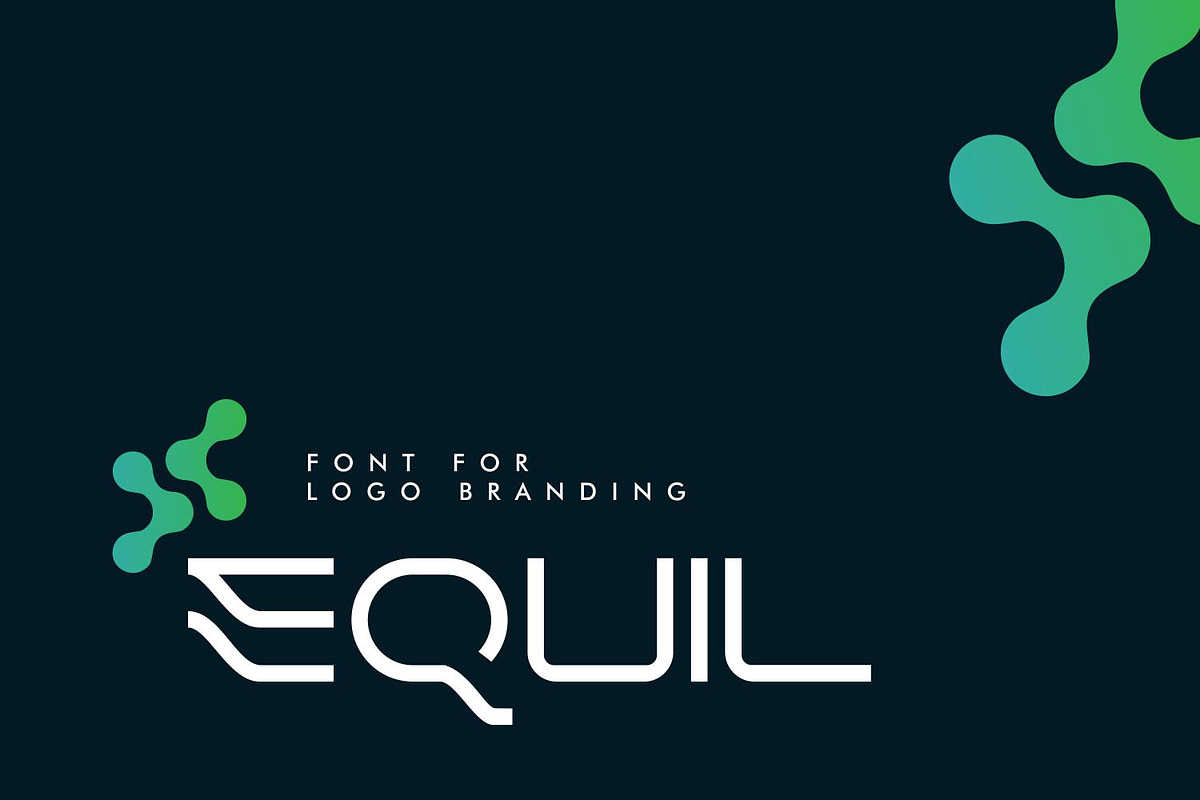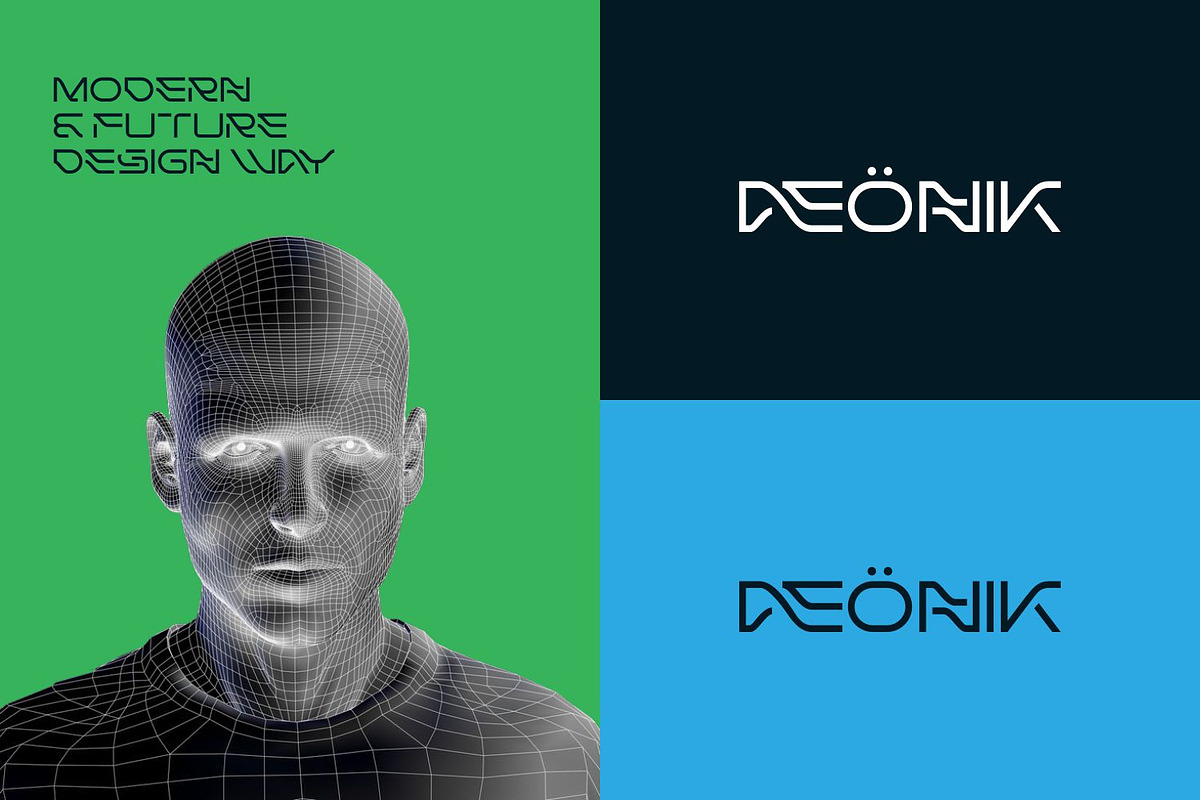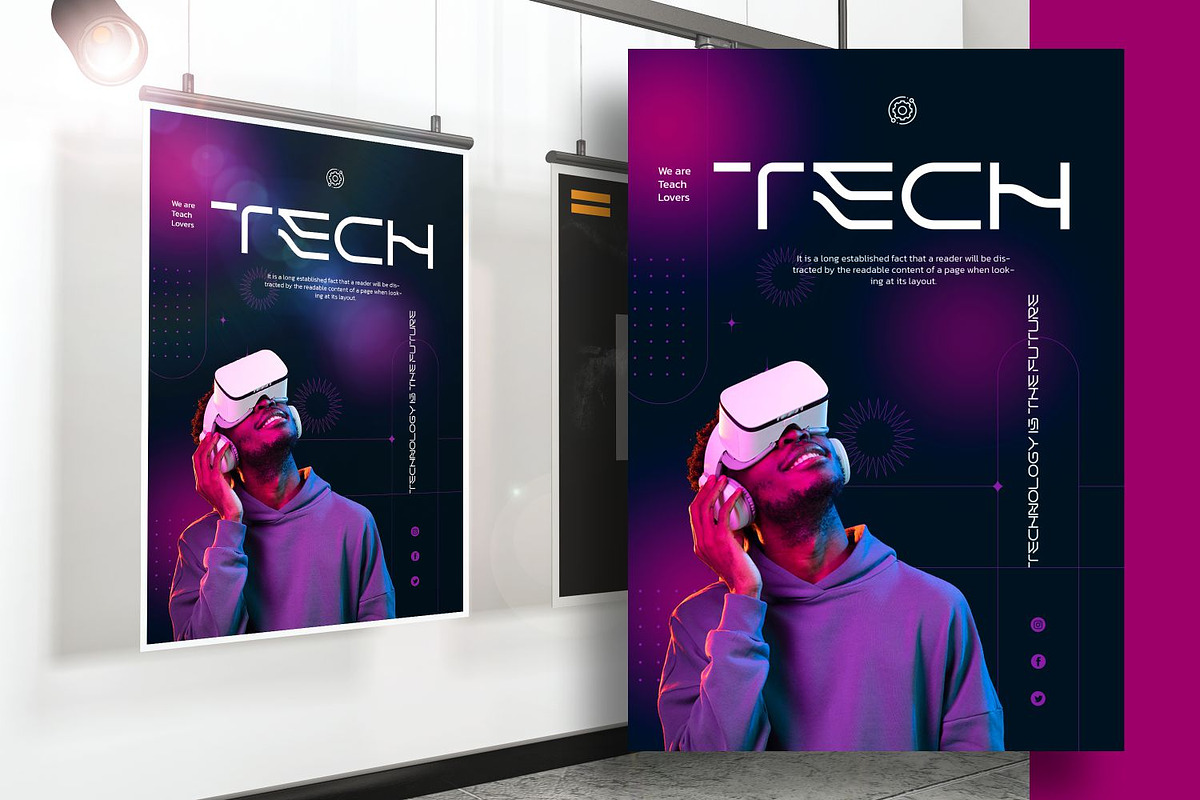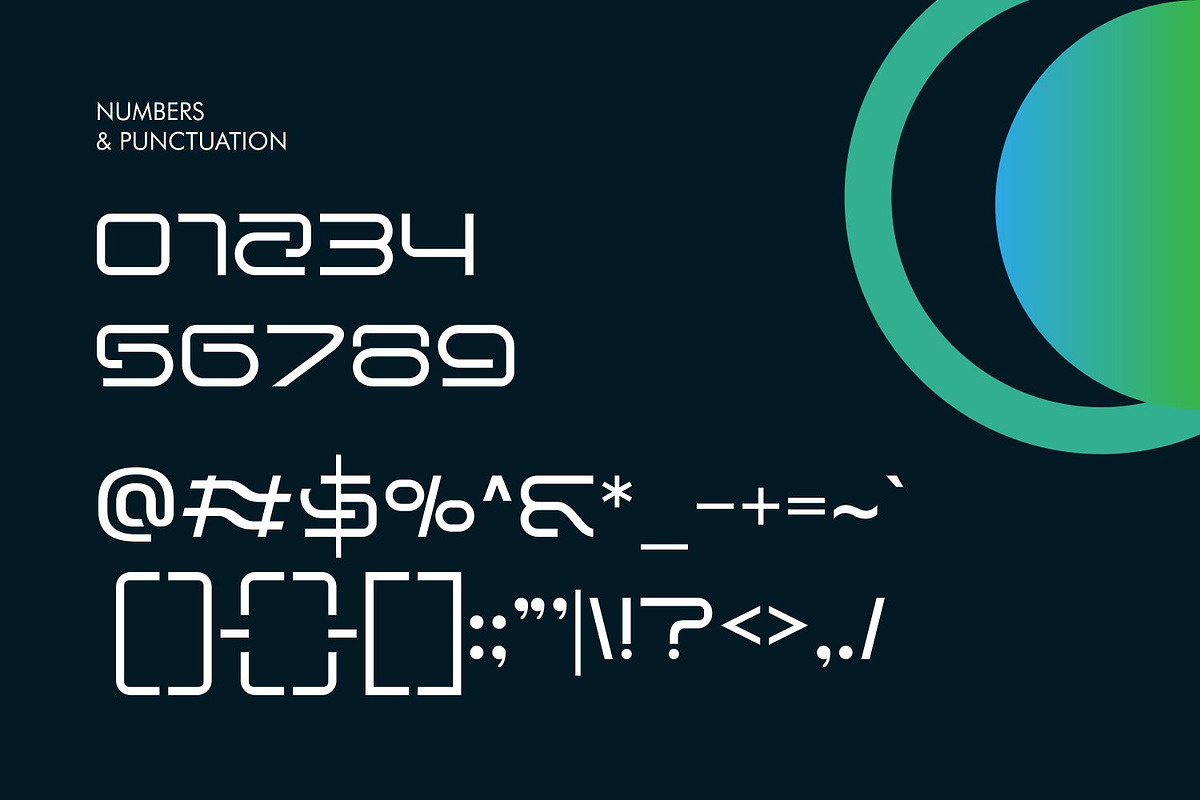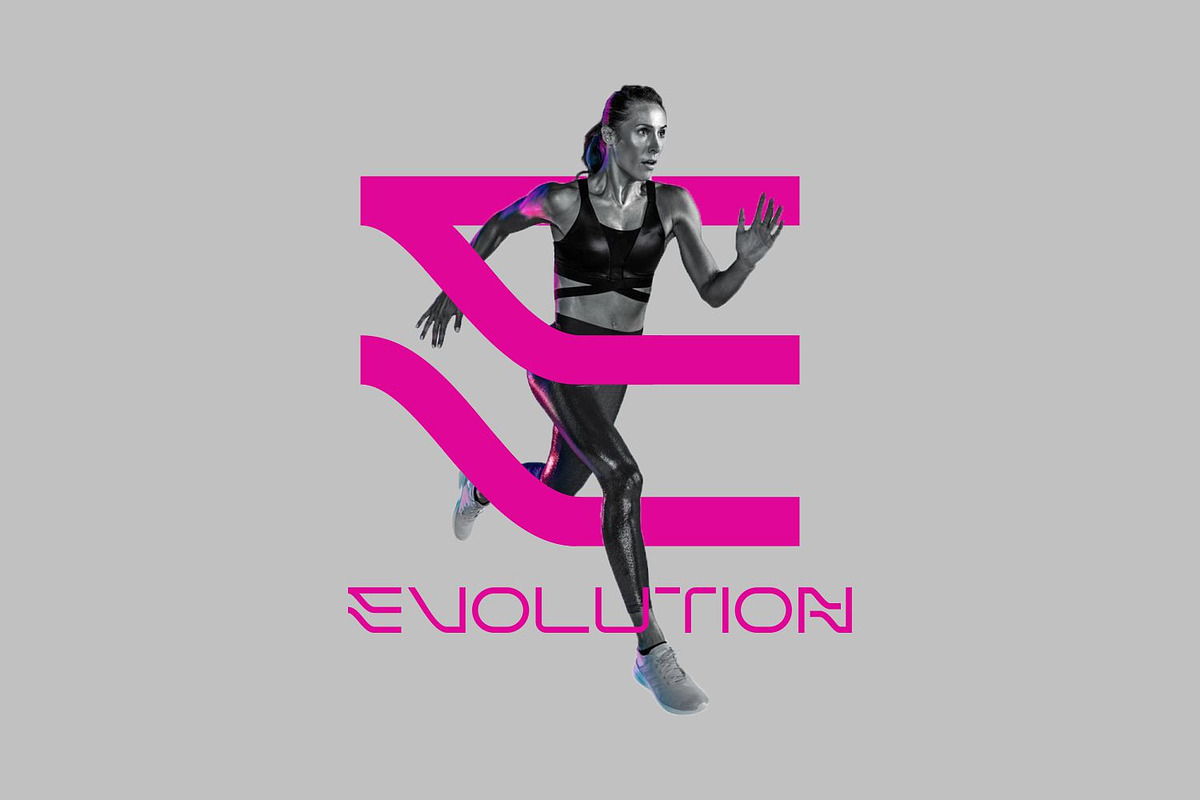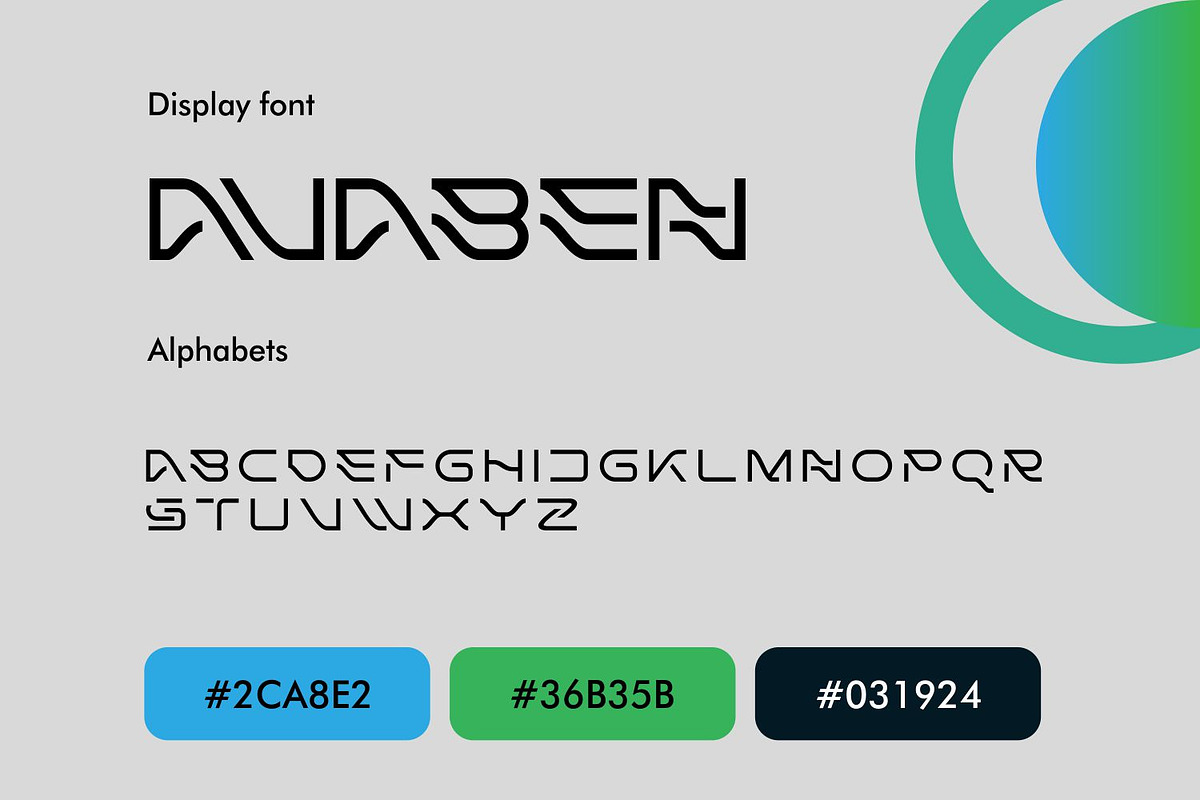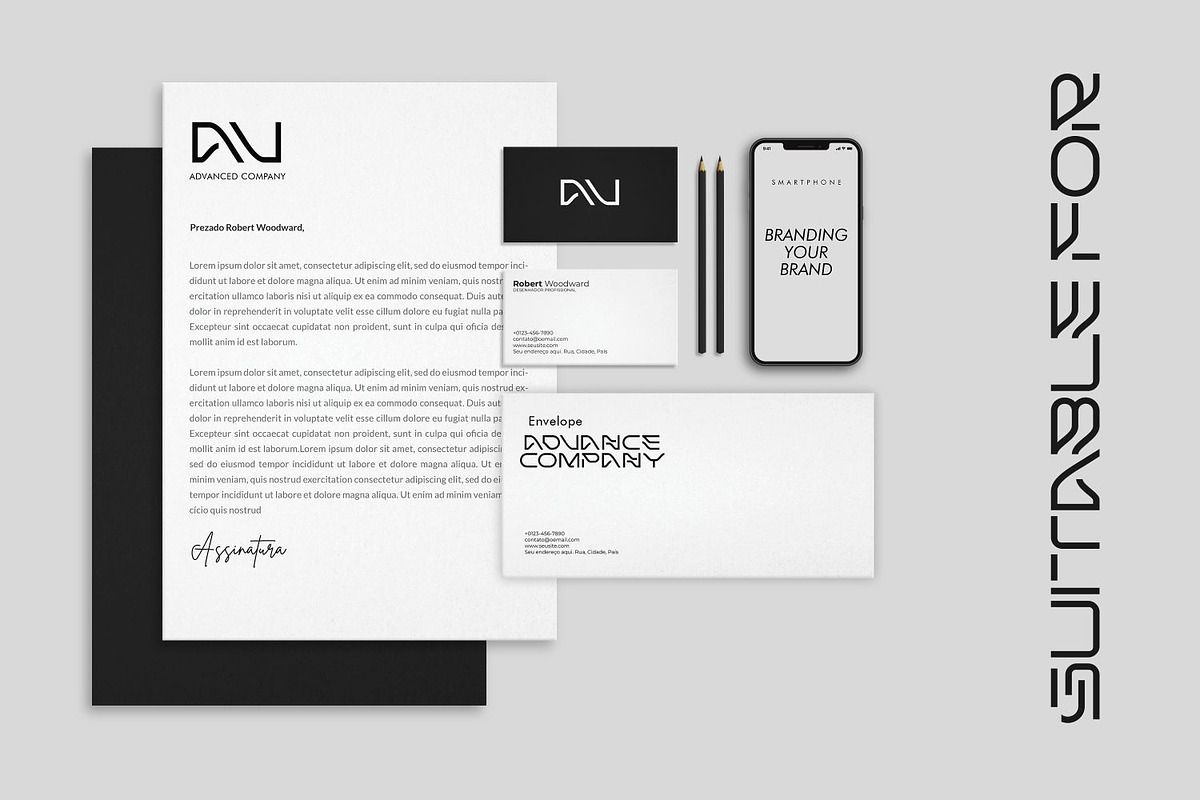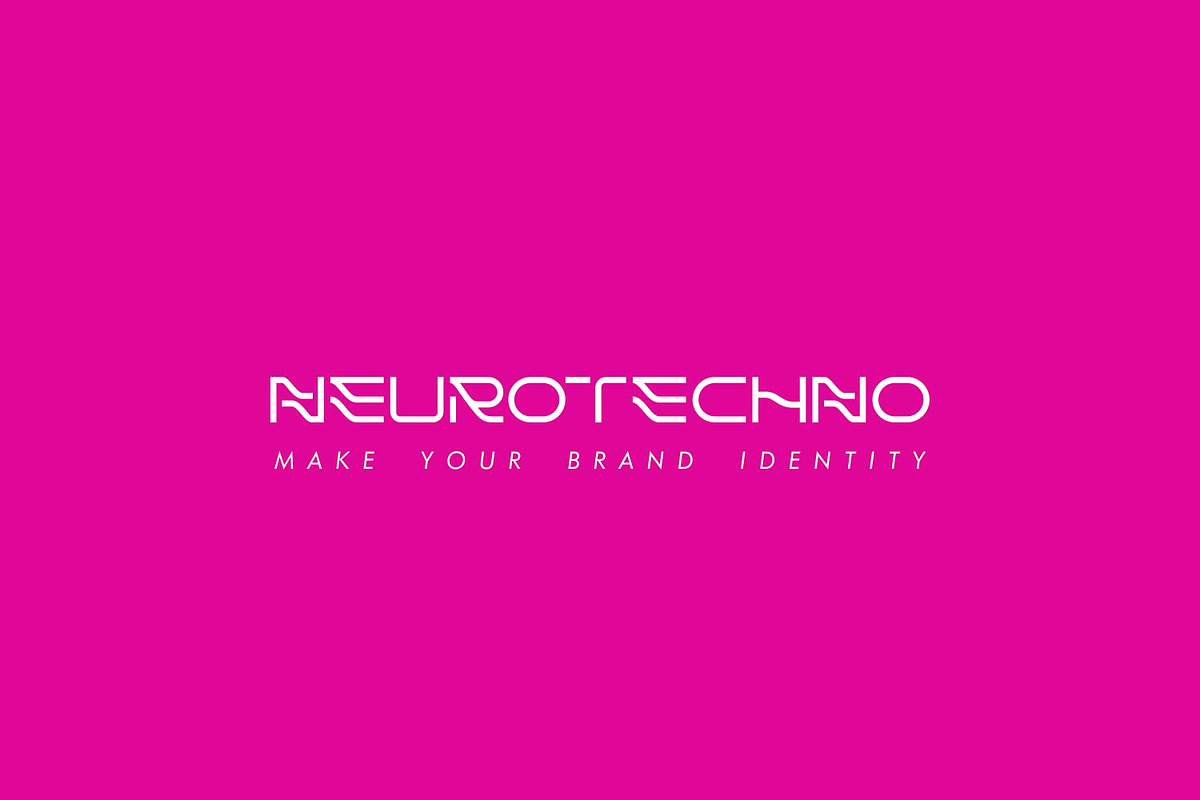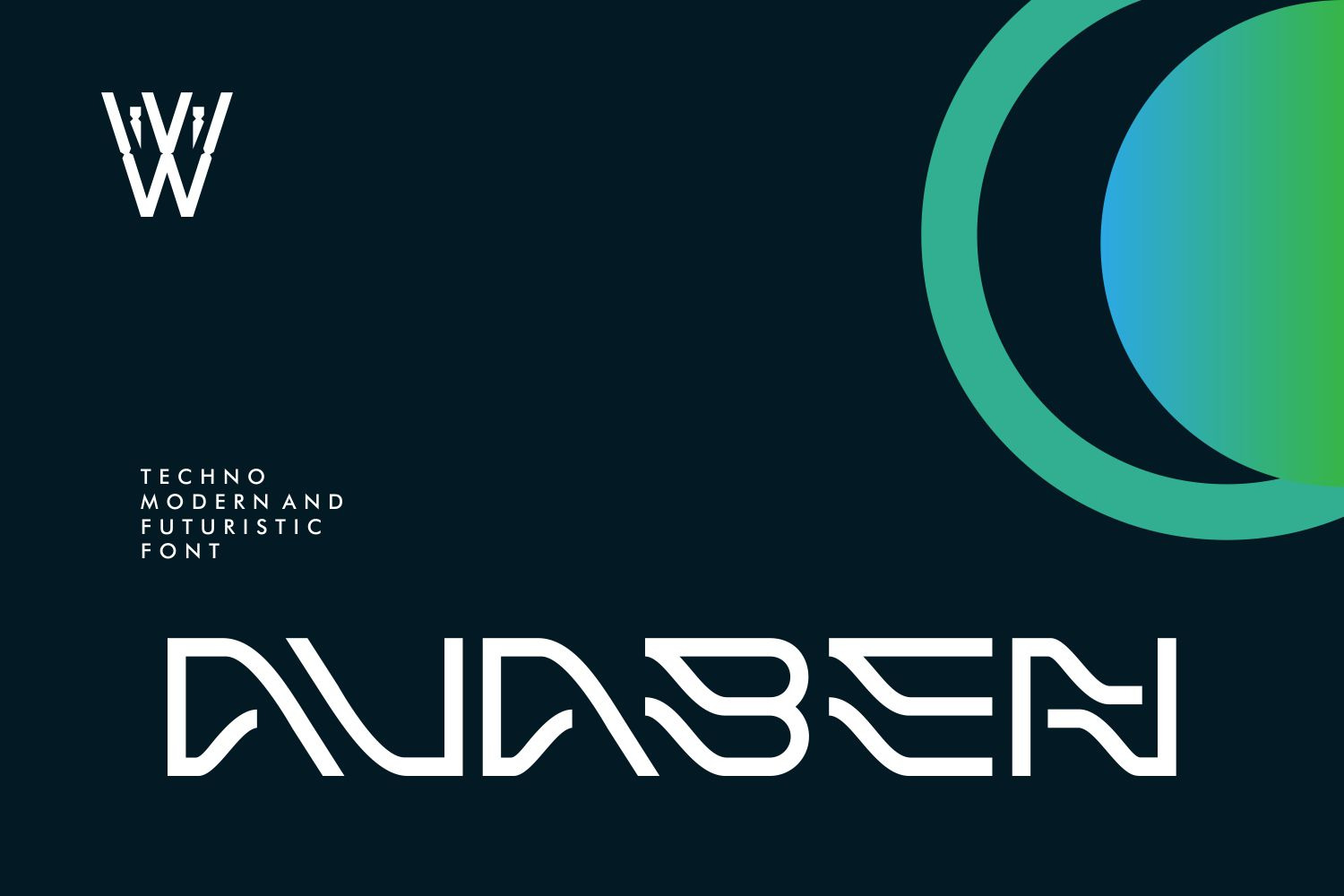
Avaben Sleek Futuristic Fonts
The Avaben Font is a sleek and dynamic futuristic typeface that epitomizes innovation and modernity. With its sharp angles, geometric shapes, and minimalist design, this font captures the essence of cutting-edge technology and forward-thinking design. Whether you’re creating designs for sci-fi themes, tech startups, or futuristic branding, the Avaben Font adds a touch of contemporary flair that captivates the viewer. Its versatility and boldness make it perfect for a wide range of digital and print applications, ensuring your designs stand out with a futuristic edge.